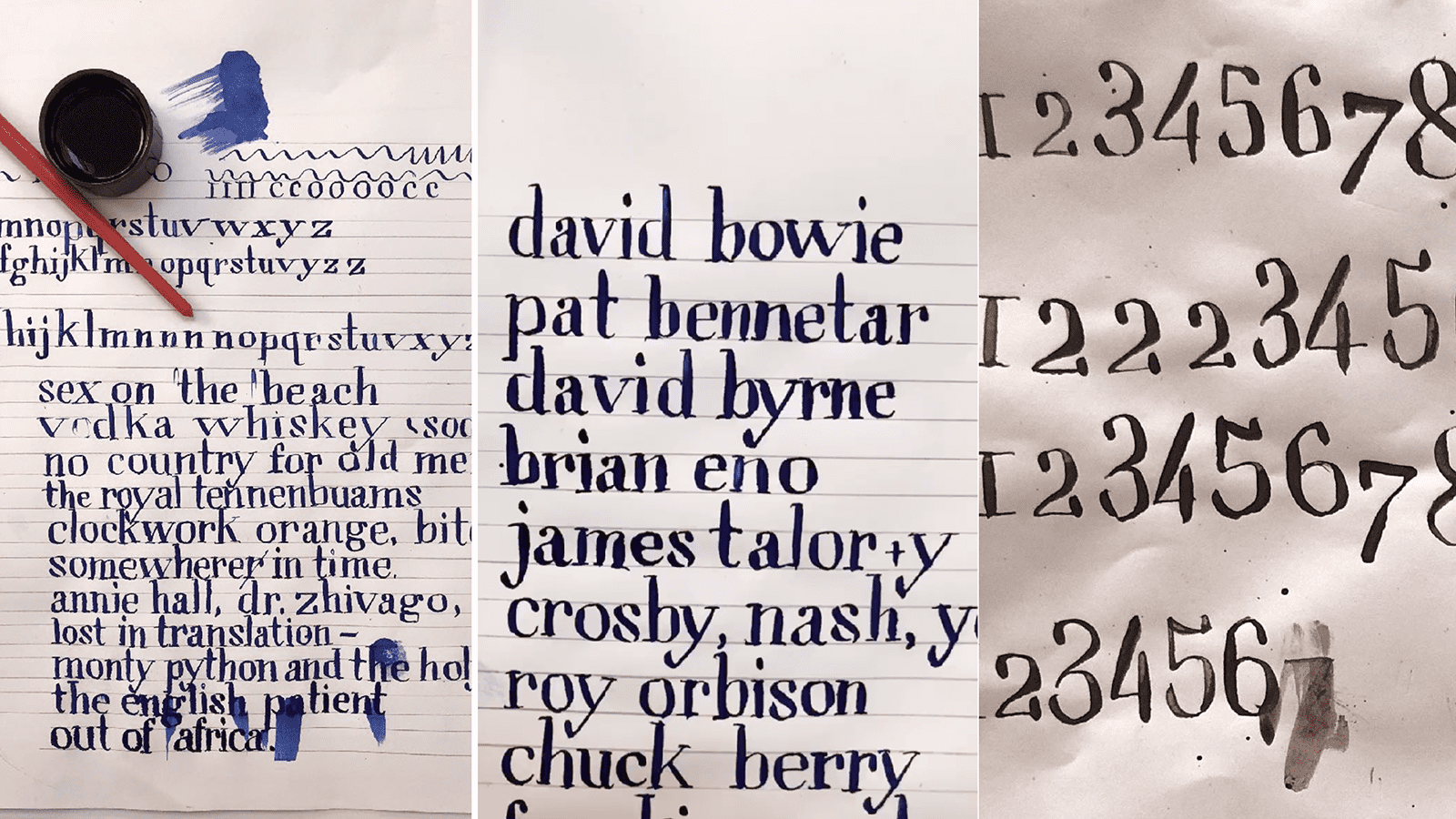
Mademoiselle Didot
Mademoiselle Didot is a curvaceous typeface that celebrates the human form. Her hourglass shape has curves for days and her quirky personality is both charming and sophisticated. Though she looks great on display, she is smart enough to adapt to any environment… she can even be Bold when necessary. She is a lady of many talents and she knows how to work the page. Mademoiselle is confident as a leading lady, but she also plays well with others.
I’ve recently grown an affinity for Eero Saarinen. His work is known for it’s neo-futuristic style and is regarded as some of the best modern architecture and industrial design of the 20th century. Not only was he versatile, gifted and superior as a young American/Finish designer, he was also terribly in love with his wife Aline. His strong character and design rigor never overshadowed his feminine side. His designs are curvaceous, extreme and never lacks in originality. Mademoiselle Didot is inspired by these characteristics, to be playful at heart, lavish in design, and flexible in use.
In addition to Saarinen’s work, I looked to Firmin Didot as the backbone to creating Mademoiselle. It’s proportional structure, dramatic extremes, and voluptuous curves have caught my eye for most of my career. When writing with the pointed-pen for the first time, I unknowingly created a Didot that would eventually emulate my own personality. I’ve been told that I captured a bit of my own ‘je ne sais quoi’ in Mademoiselle Didot. The journey I took while creating this typeface has reminded me to trust myself and my intuition. There is always an explanation for following your instinct.